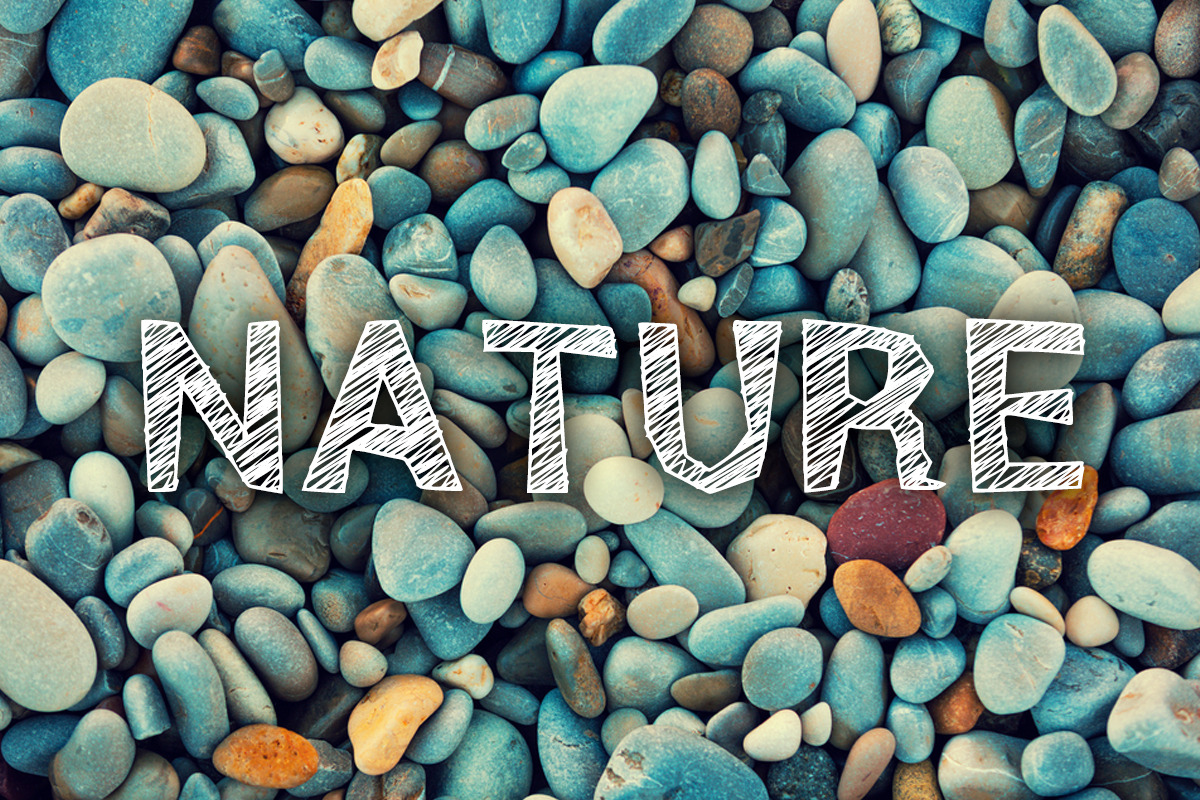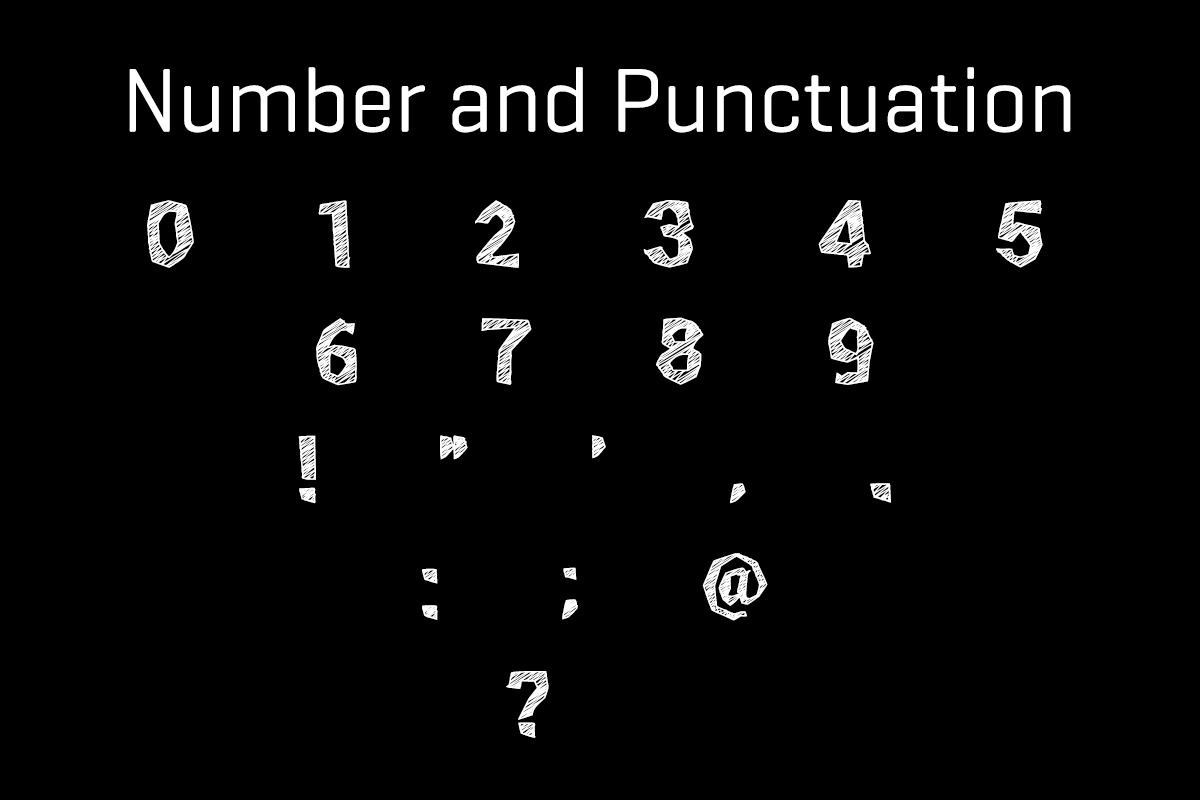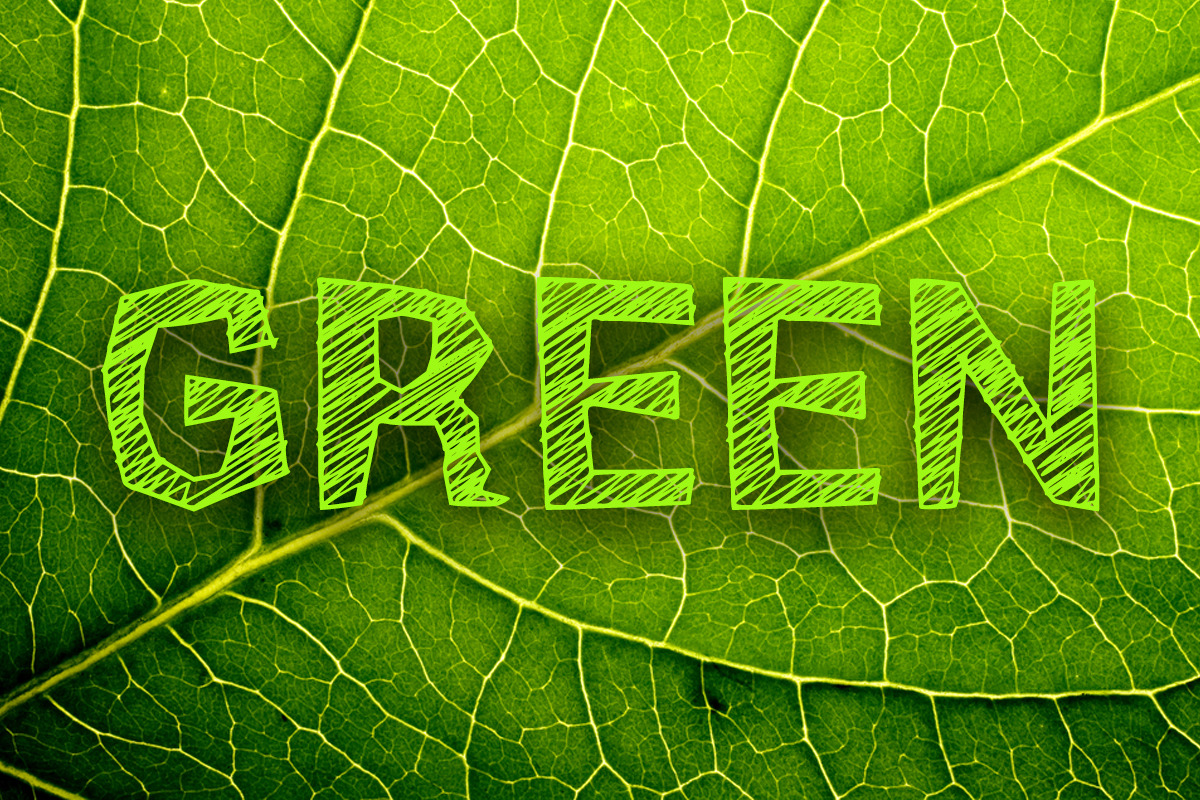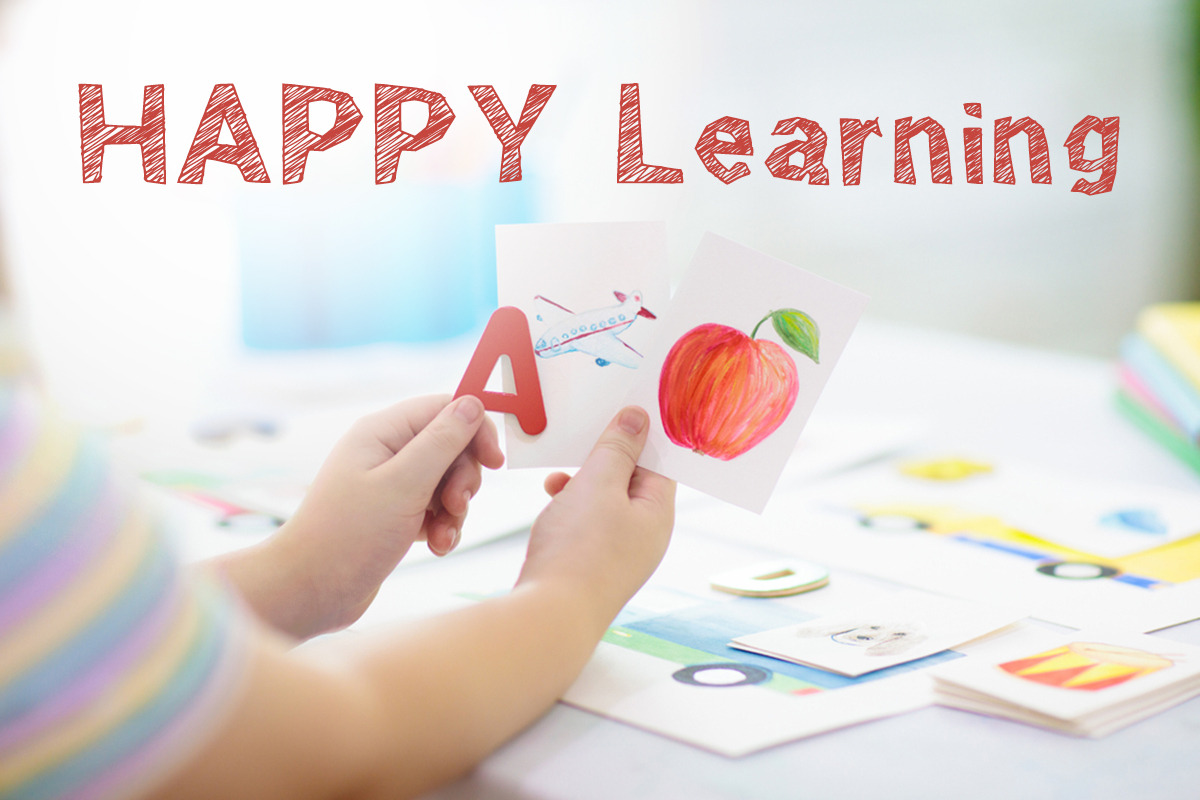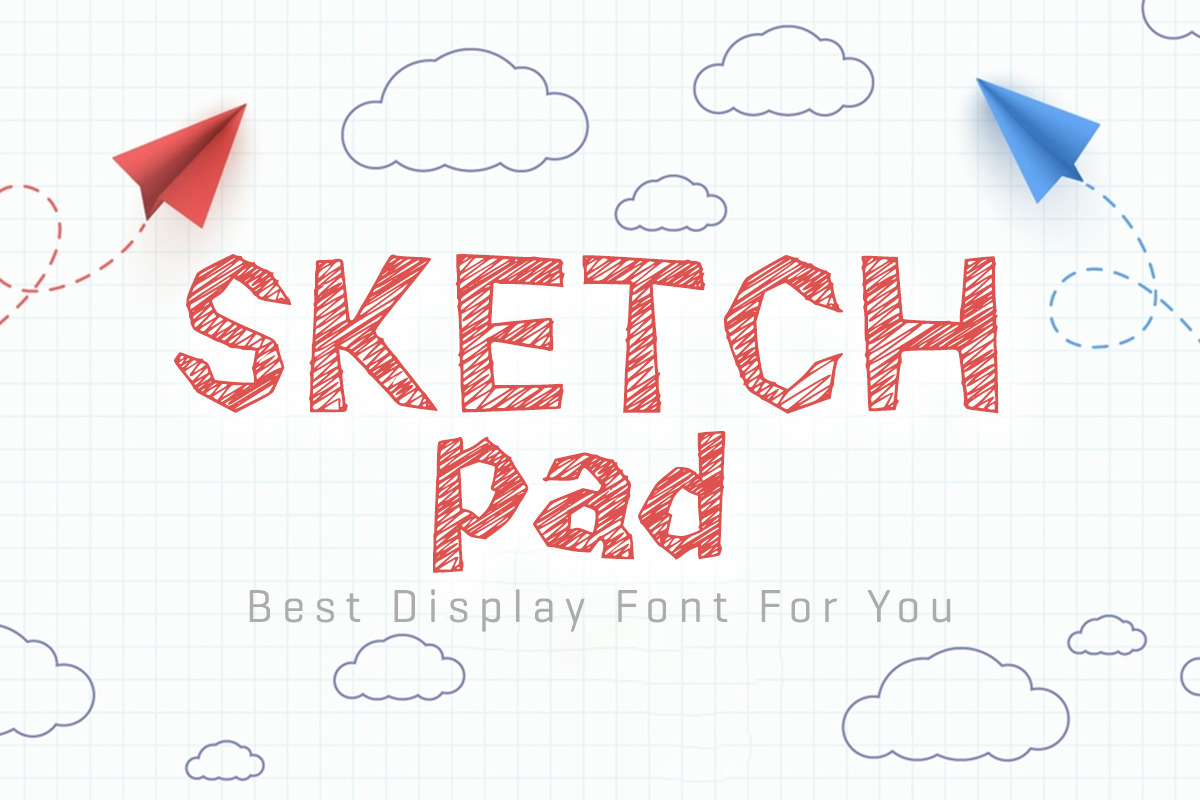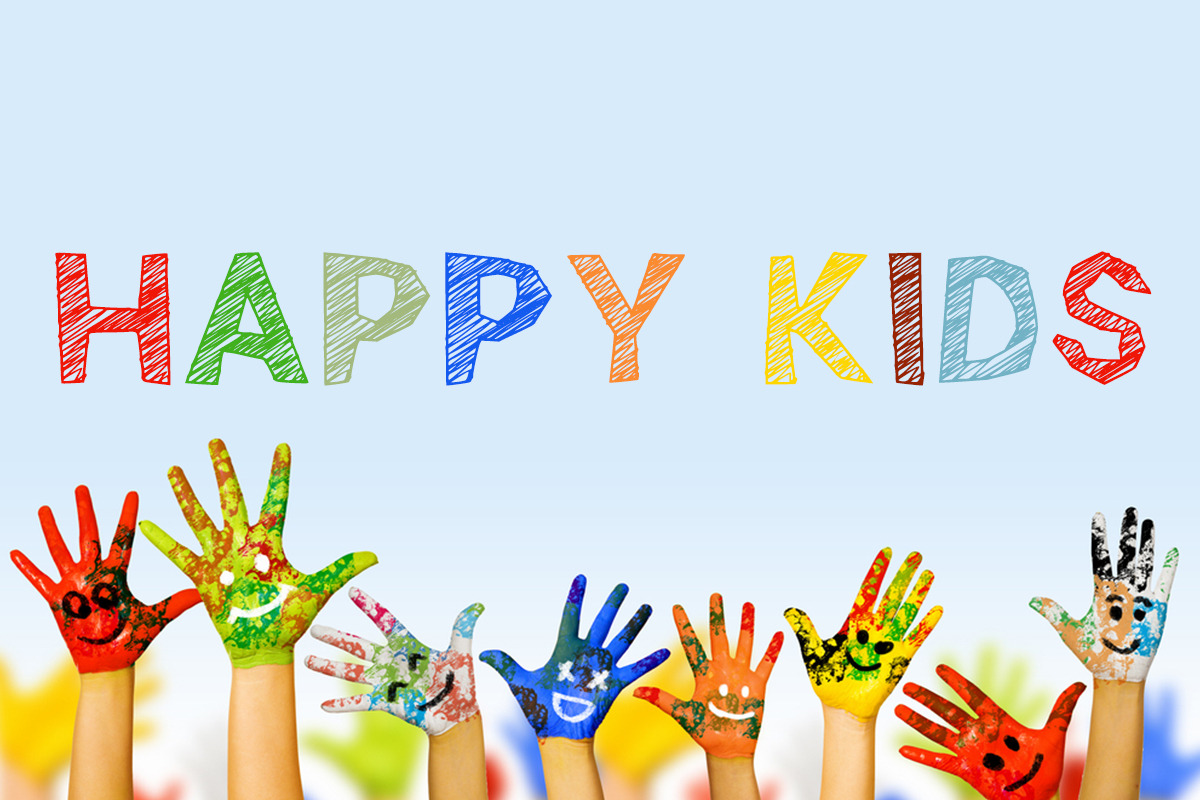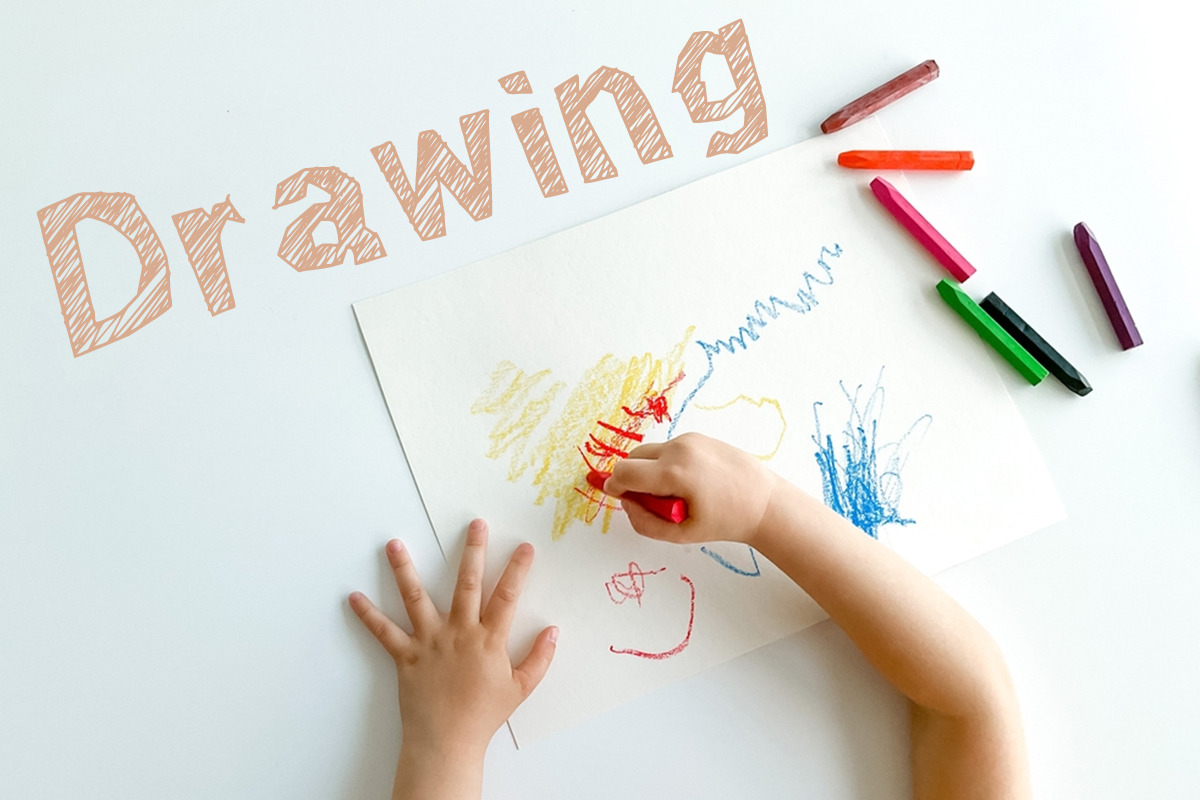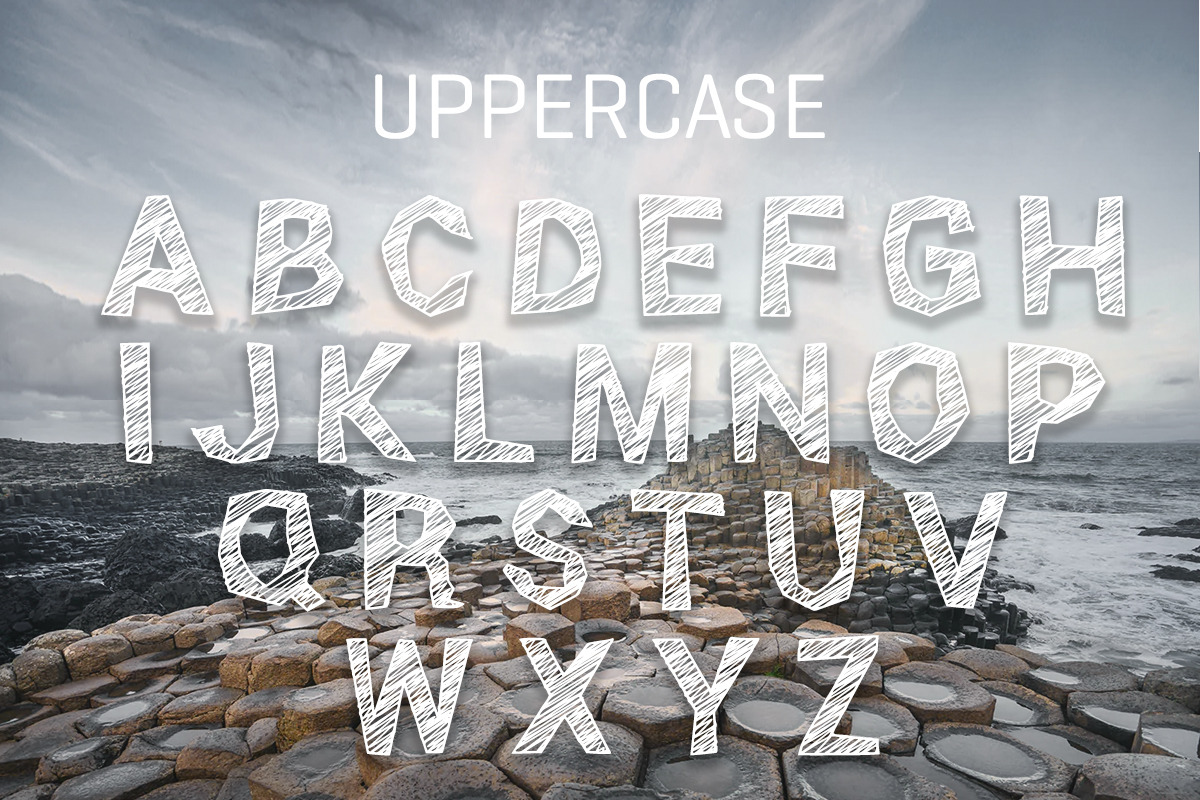
Sketch Pad Font
Express your unique style with Sketch Pad, an eccentric and enjoyable display font crafted with playful irregularities. No matter your project theme, Sketch Pad stands out as a dynamic addition to typography collection, promising to amplify and invigorate your creative expressions. This font holds the magic to transform your design vision into a distinct visual treat. Embellish your work with Sketch Pad, where fun meets functionality!